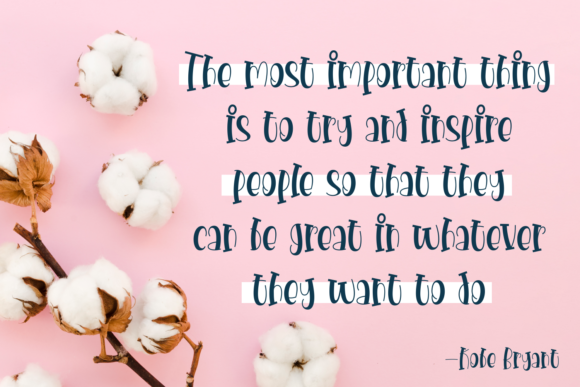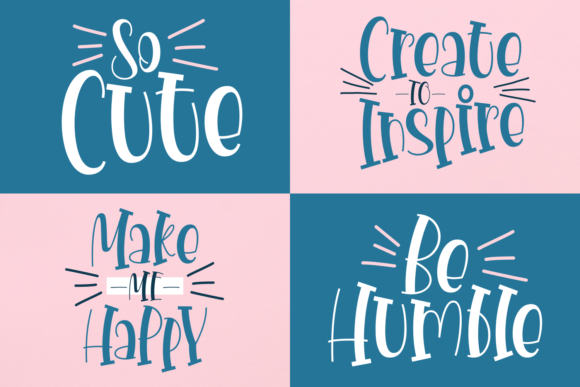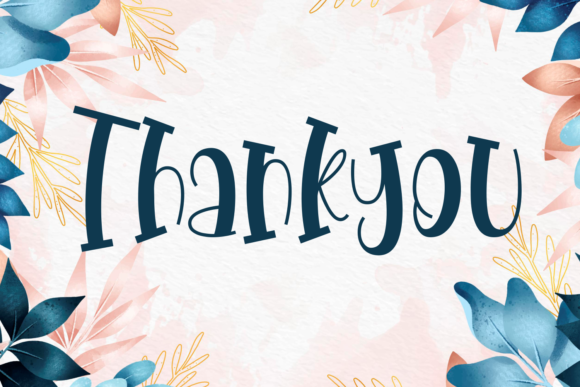
The Perfect Addition to Your Design: Jackaly Font
Have you ever been brainstorming ideas for a project, and suddenly, a spark of creativity hits you? You envision a playful, whimsical design that captures the hearts of your audience. That’s exactly what the Jackaly Font can bring to your work – an incredibly joyful touch that sets your designs apart.
Meet Jackaly Font, a cute and quirky display font that’s designed to add a splash of fun to your creative ideas. Its purpose is to elevate your designs, making them more engaging and memorable. As a designer, you know how important it is to stand out in a crowded market, and that’s exactly what Jackaly Font can help you do. By incorporating this beautiful display font into your work, you’ll be able to convey your unique personality and style, making your designs truly special.
Key Features of Jackalyn Font
- Font Family: Jackalyn, a script font designed to mimic handwritten text.
- Unique Characteristics: Features a unique blend of elegance and playfulness, with a natural, hand-drawn feel.
Jackaly Font Review
Overall, I was pleasantly surprised by the Jackaly font. Here’s what I liked:
- ✨ Unique style: Jackaly has a quirky, hand-drawn feel that sets it apart from more traditional fonts. I love how it adds a touch of personality to any design.
- ✨ Versatility: The font comes in a range of weights, from light to bold, making it suitable for a variety of projects, from headings to body text.
- ✨ High-quality rendering: The font renders beautifully at various sizes and resolutions, ensuring that your design will look great on any device.
- ⚠️ Limited language support: Jackaly only includes support for the Latin alphabet, which may limit its use for multilingual designs.
- ⚠️ Some character set issues: I noticed a few character combinations that didn’t render correctly, which could be a problem for certain types of content.
- ⚠️ No Cyrillic or Asian support: If you need to design for non-Latin languages, Jackaly may not be the best choice.
Overall, I think Jackaly is a great font for designers who want to add some personality to their projects. While it has some limitations, its unique style and versatility make it a solid choice for many types of designs.
Jackaly Font Practical Application Guide
Tips for Getting the Most Out of Jackaly Font
Use the Jackaly font for creative, artistic, or whimsical designs. Pair it with bold, bright colors to create a striking visual effect. Experiment with different font sizes and styles to add depth and interest to your design.
Use the Jackaly font for:
- Whimsical wedding invitations
- Artistic posters and prints
- Creative business branding
Alternatives to Jackaly Font
Fontin is a sans-serif font that is highly legible and versatile. It is ideal for use in body text, titles, and headings where a clean and modern aesthetic is desired.
Fontin is more condensed than Jackaly Font, making it suitable for use in narrower spaces. It also has a slightly more neutral tone, which may be preferred by designers who want to avoid the slightly rougher feel of Jackaly Font.
Raleway
Raleway is a high-contrast serif font that is highly readable and aesthetically pleasing. It is ideal for use in titles, headings, and body text where a classic and sophisticated feel is desired.
Raleway has a more refined and elegant feel compared to Jackaly Font, making it suitable for use in formal and professional contexts. However, it may not be as versatile as Jackaly Font in terms of font sizes and styles.
Montserrat is a geometric sans-serif font that is highly legible and versatile. It is ideal for use in body text, titles, and headings where a modern and urban aesthetic is desired.
Montserrat is more geometric and structured than Jackaly Font, making it suitable for use in digital and web design. However, it may lack the character and personality of Jackaly Font in certain contexts.